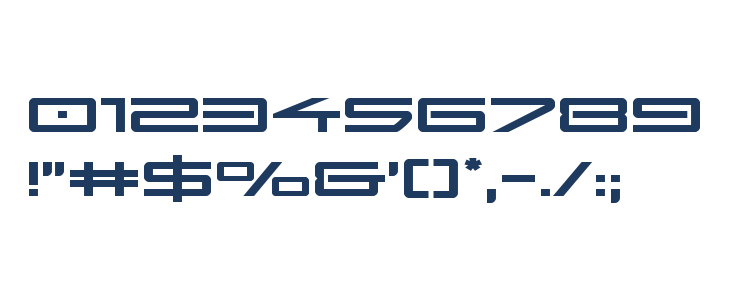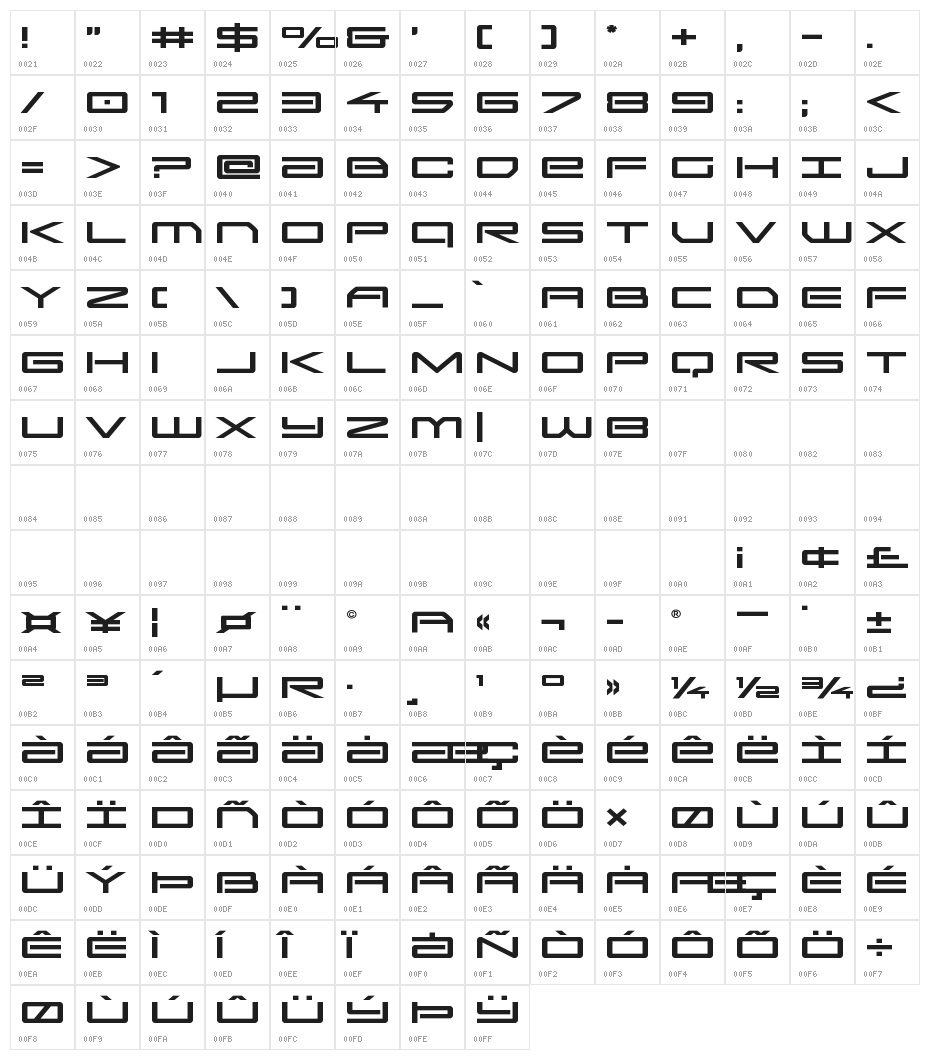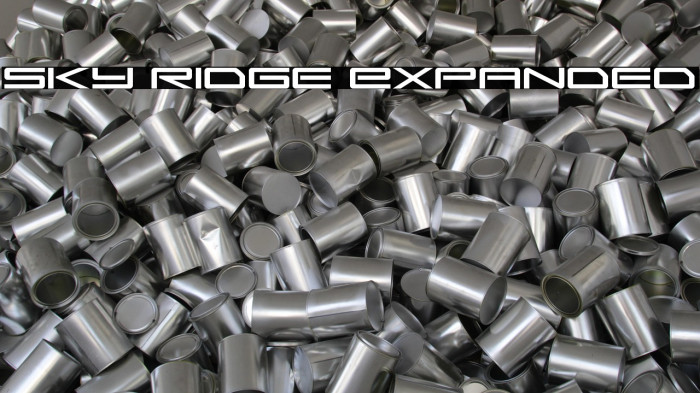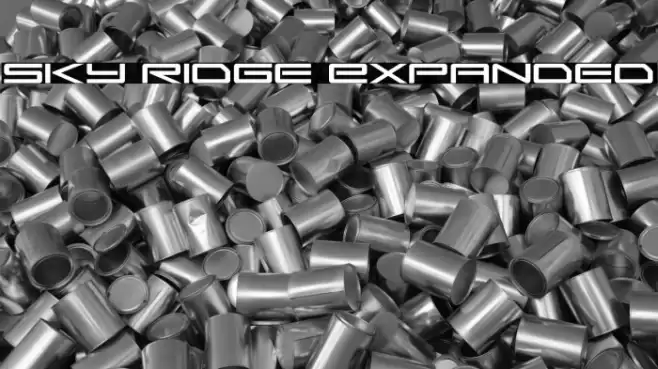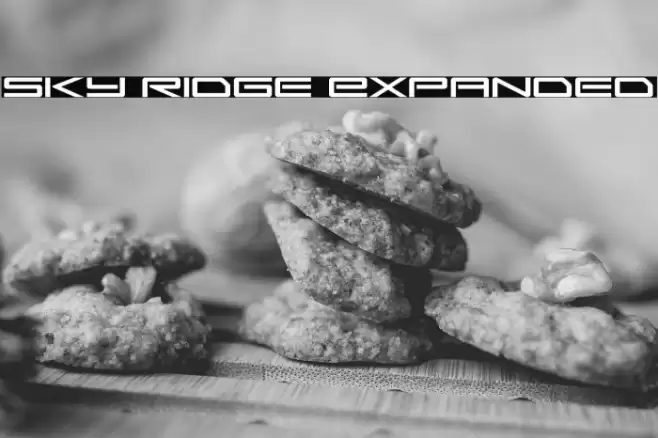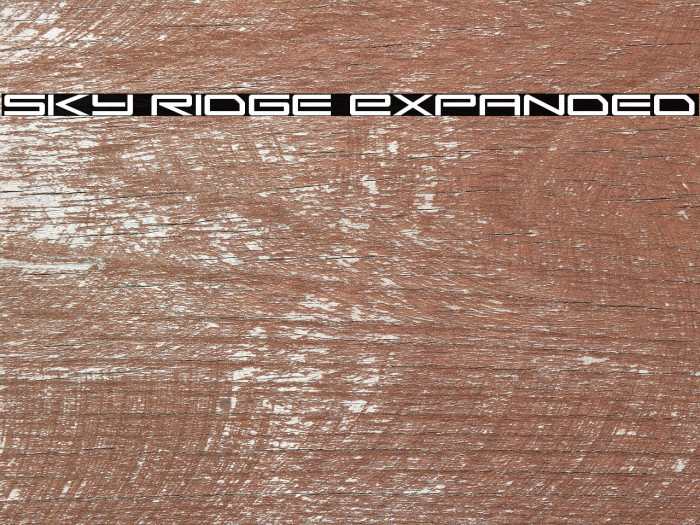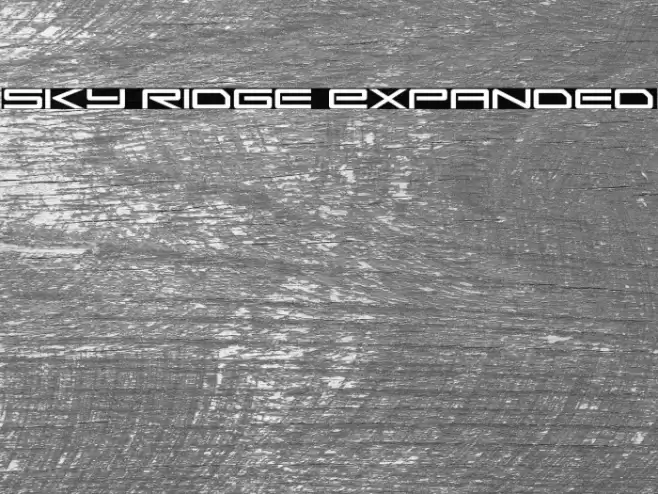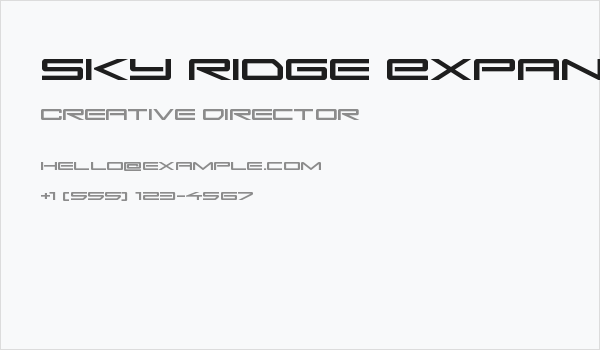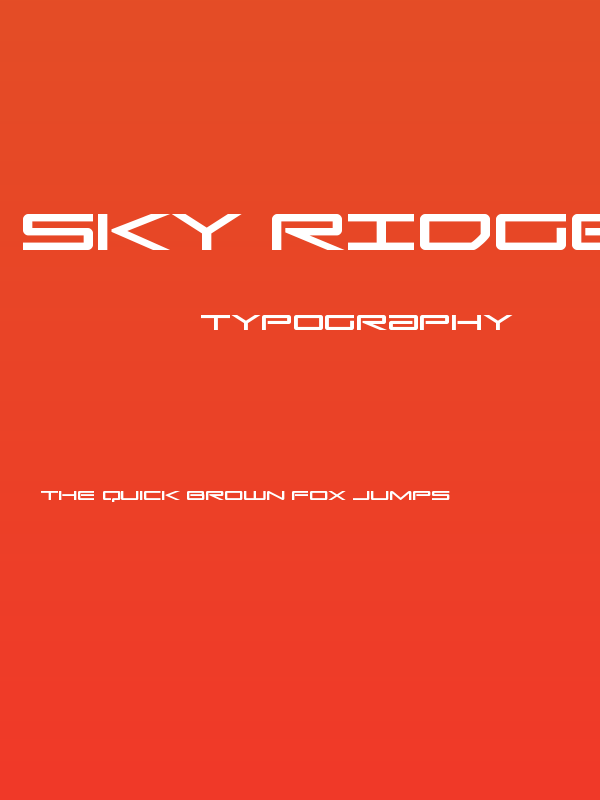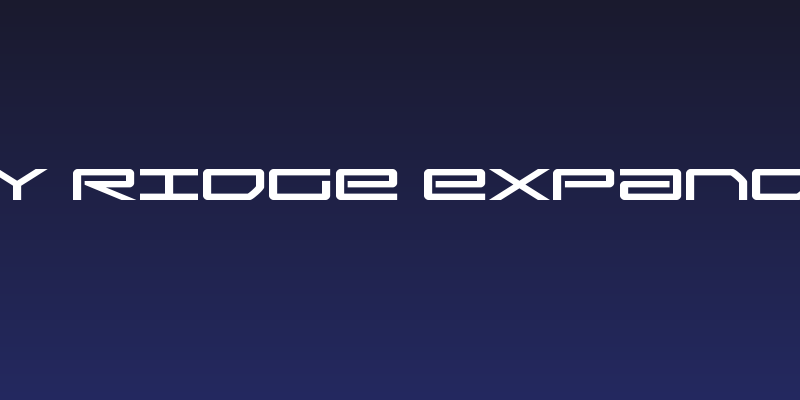
Sky Ridge Expanded Font
Sky Ridge Expanded Description
This font features a futuristic and geometric design, characterized by its expanded width and angular shapes. The characters are constructed with clean, straight lines and sharp corners, giving it a modern and tech-inspired appearance. The uppercase and lowercase letters maintain a consistent style, with a focus on symmetry and uniformity. The numerals and special characters complement the alphabet with similar design elements, ensuring a cohesive look across all glyphs. The font's expanded nature provides a sense of openness and readability, making it suitable for various design applications.
| Proposed Projects | Ideal for technology branding, sci-fi themed designs, video game interfaces, and modern advertising. |